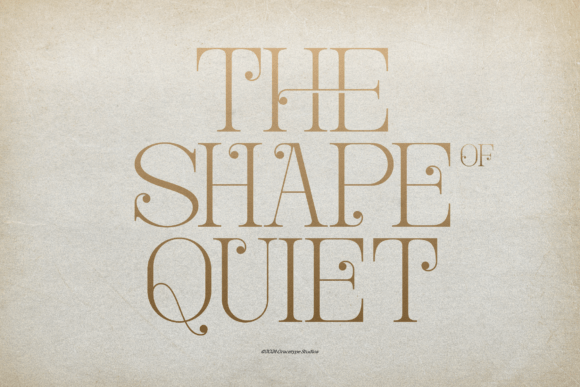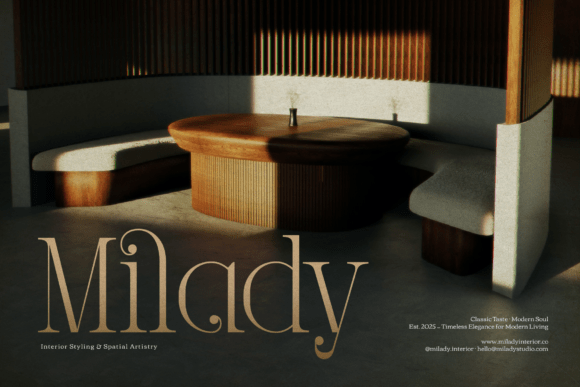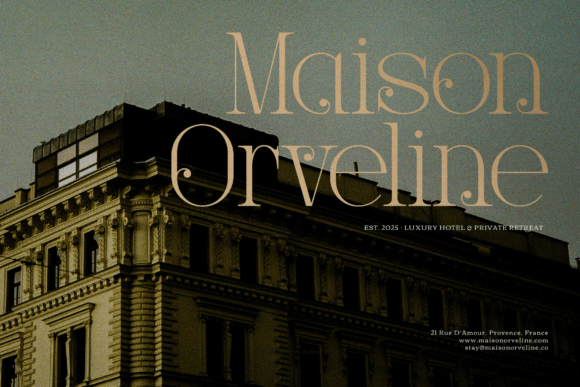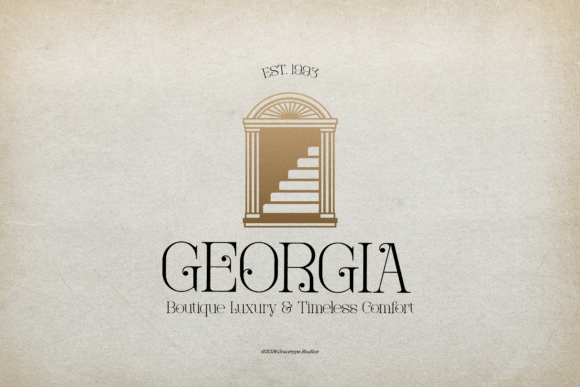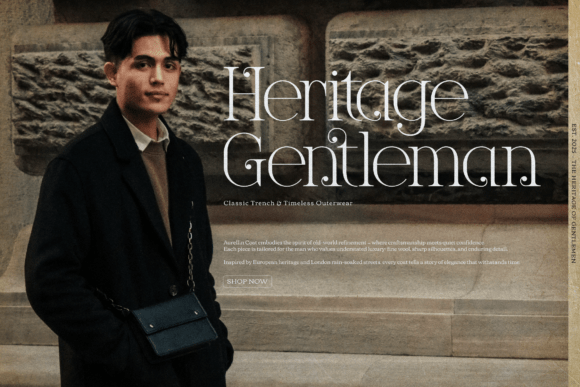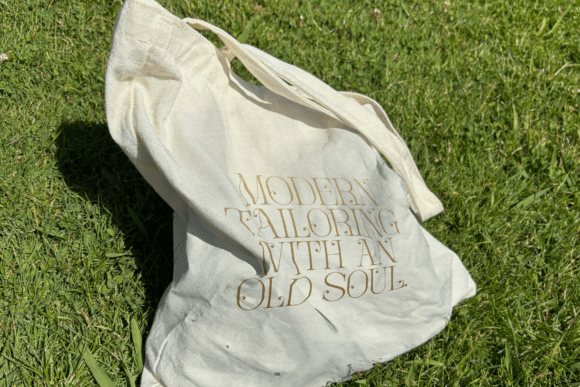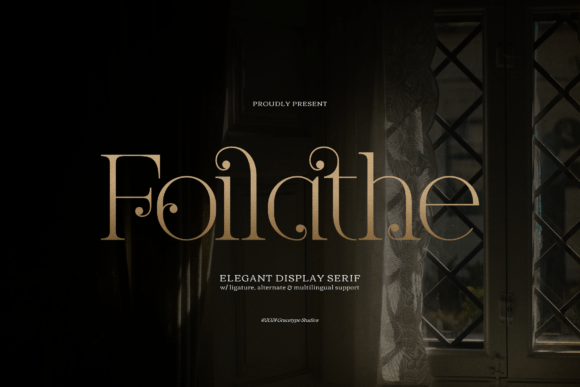
Foilathe Font: Elevate Your Designs with Elegance
Are you looking for a font that exudes sophistication and elegance? Look no further than Foilathe Font, a stunning serif font perfect for a wide range of design projects. In this article, we’ll dive into the world of Foilathe, exploring its features, uses, and benefits for designers and crafters.
What is Foilathe Font?
Foilathe Font is a beautiful, elegant serif font designed to add a touch of luxury to any project. Its classic and timeless design makes it suitable for a variety of applications, from logos and branding projects to homeware designs, product packaging, and more.
Features of Foilathe Font
Foilathe Font boasts a range of features that make it an ideal choice for designers and crafters. Some of its key characteristics include:
- Elegant serif design
- Classic and timeless look
- Suitable for a wide range of design projects
- Perfect for logos, branding projects, and more
Uses of Foilathe Font
Foilathe Font is incredibly versatile, making it perfect for a variety of design projects, including:
- Logos and branding projects
- Homeware designs
- Product packaging
- Mugs
- Quotes
- Posters
- Shopping bags
- T-shirts
- Book covers
- Name cards
- Invitation cards
- Greeting cards
- Labels
- Photography
- Watermarks
- Special events
Benefits of Using Foilathe Font
So, why choose Foilathe Font for your design projects? Here are just a few benefits:
- Adds a touch of elegance and sophistication to your designs
- Classic and timeless design ensures your projects won’t go out of style
- Versatile and suitable for a wide range of applications
- Perfect for designers and crafters looking to elevate their projects
Tips for Using Foilathe Font
To get the most out of Foilathe Font, here are a few tips:
- Use it as a headline font to add impact and elegance
- Pair it with a sans-serif font for a striking contrast
Foilathe Font is a stunning, elegant serif font perfect for designers and crafters looking to add a touch of sophistication to their projects. With its classic and timeless design, versatility, and range of uses, it’s an ideal choice for anyone looking to elevate their designs. Whether you’re working on a logo, branding project, or homeware design, Foilathe Font is sure to impress.